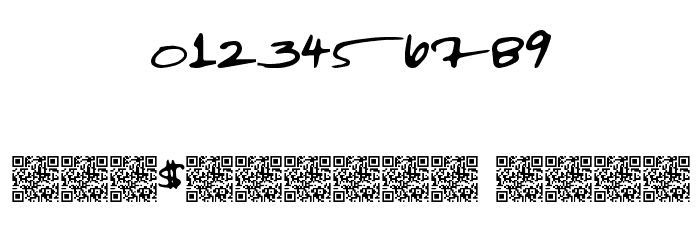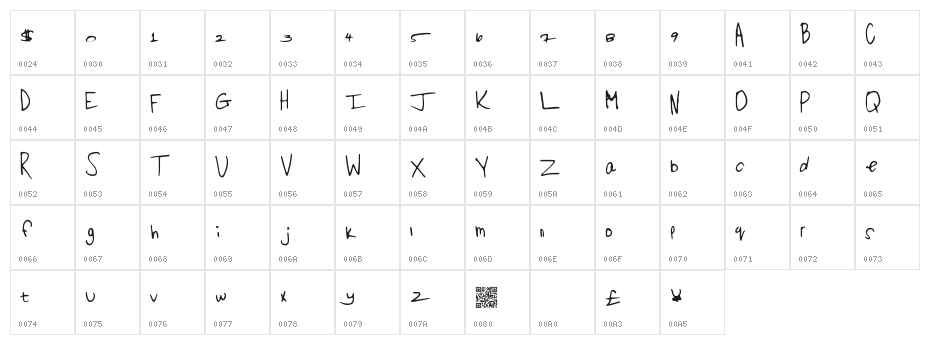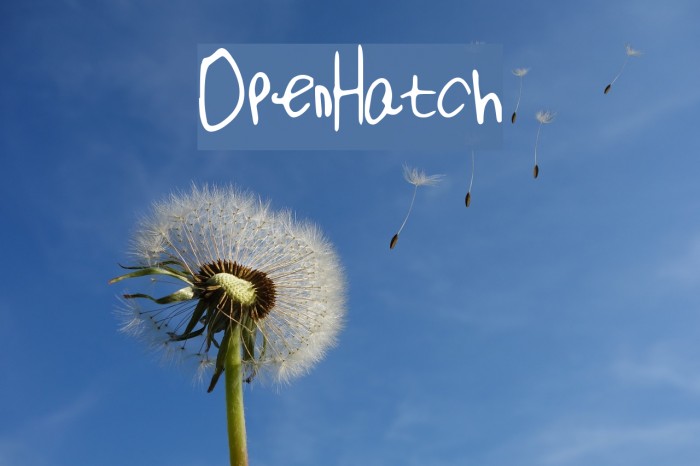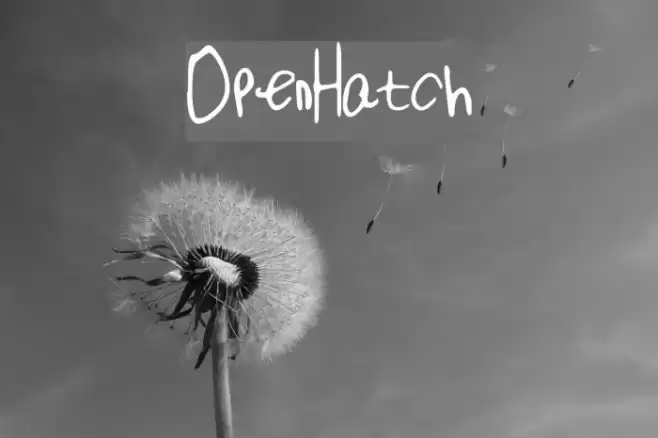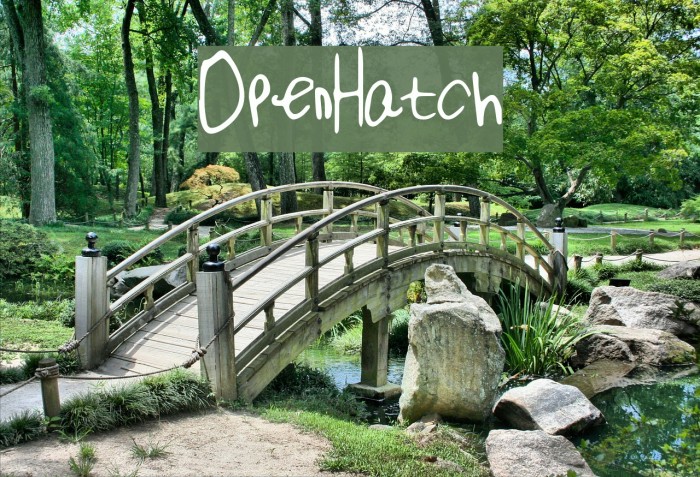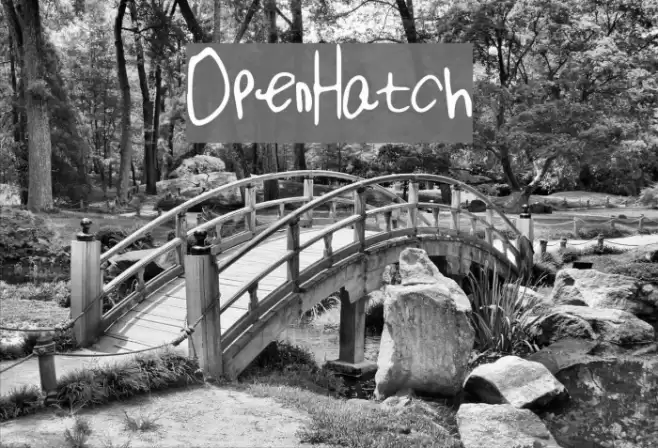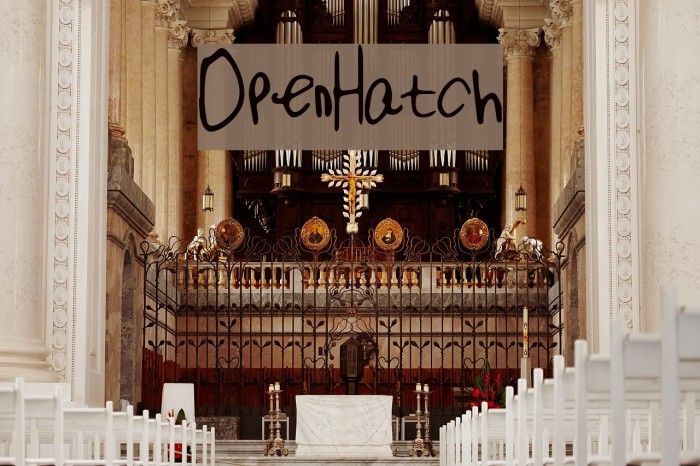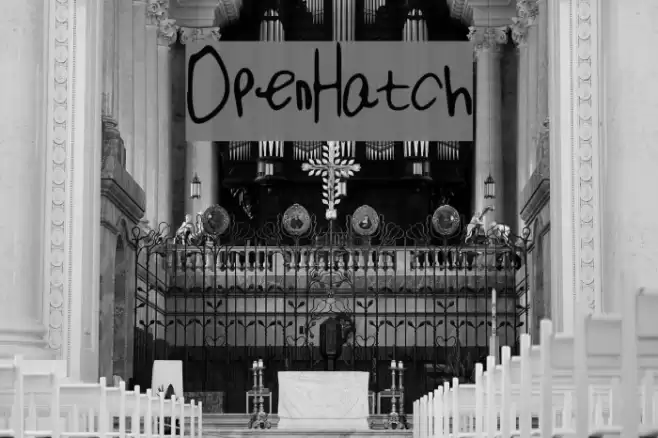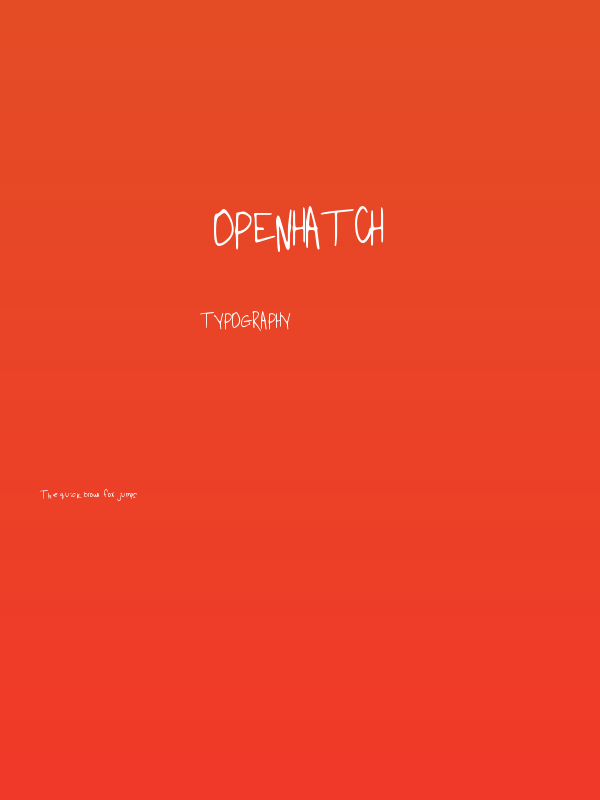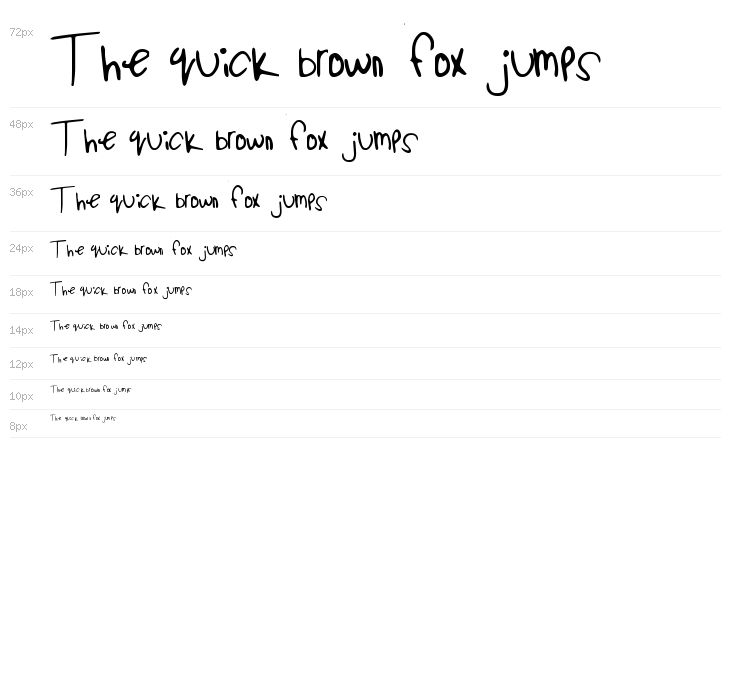
OpenHatch Font
OpenHatch Description
This font features a playful and informal handwritten style, characterized by its irregular and dynamic strokes. The uppercase letters are bold and slightly uneven, giving a sense of spontaneity and energy. The lowercase letters maintain a consistent flow, with some letters extending below the baseline, adding to its casual charm. The numerals are quirky and match the overall handwritten aesthetic. Special characters are integrated seamlessly, maintaining the font's cohesive look. This font is ideal for projects that require a personal touch or a creative flair, such as invitations, greeting cards, or artistic posters.
| Overall Style | Casual, Creative |
| Use Case | Headlines, Artistic projects, Informal communications |
| Proposed Projects | Ideal for invitations, greeting cards, artistic posters, and any project needing a personal touch. |